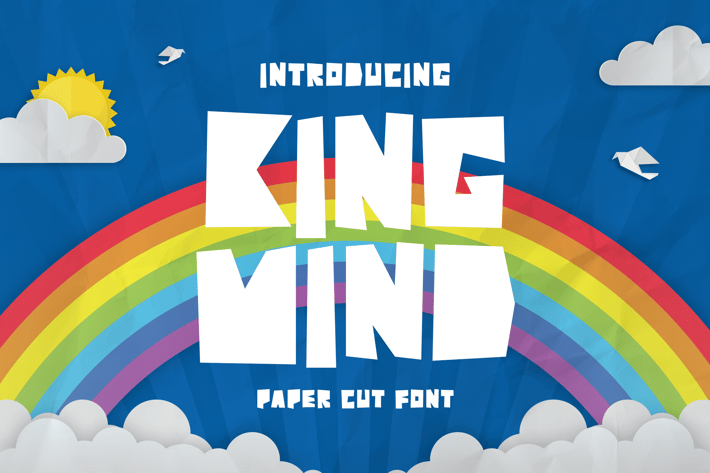
King Mind - Paper Cut Font
King Mind is a playful paper cut font that brings a handcrafted, whimsical touch to any project. Its unique letterforms resemble cut-out paper shapes, making it ideal for creative projects, children’s books, posters, and DIY-themed designs. King Mind’s quirky, irregular lines lend a lighthearted and artistic feel, perfect for brands seeking a warm, approachable aesthetic. This font is versatile across print and digital formats, adding personality and charm to everything from packaging to social media graphics. Let King Mind bring a fresh, imaginative vibe to your designs.